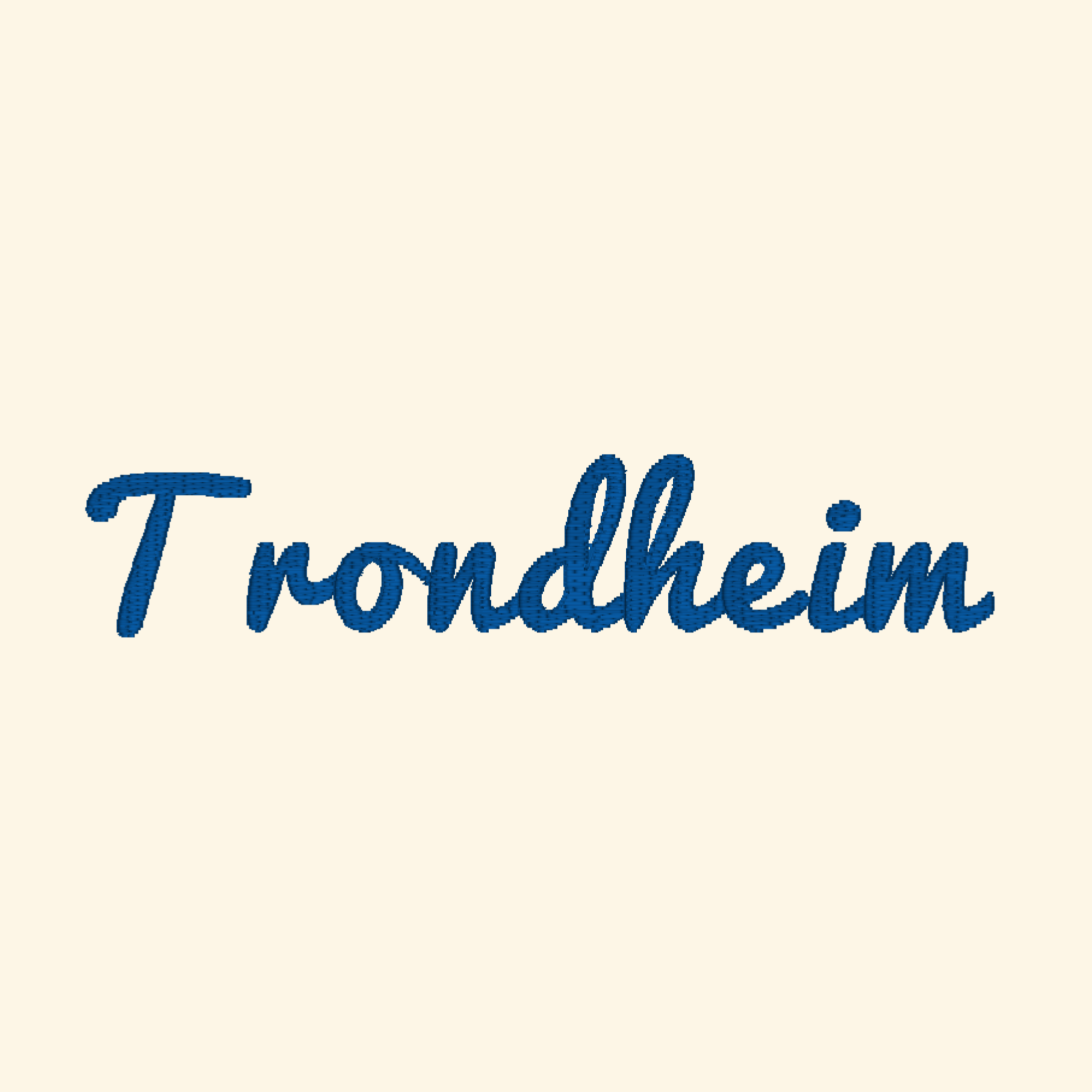
🪡Trondheim - premium embroidery font.
Take your projects to the next dimension with Trondheim - professional machine embroidery alphabet! Specially digitized for high-impact results, this font is the perfect choice for creating any item that requires embroidery.